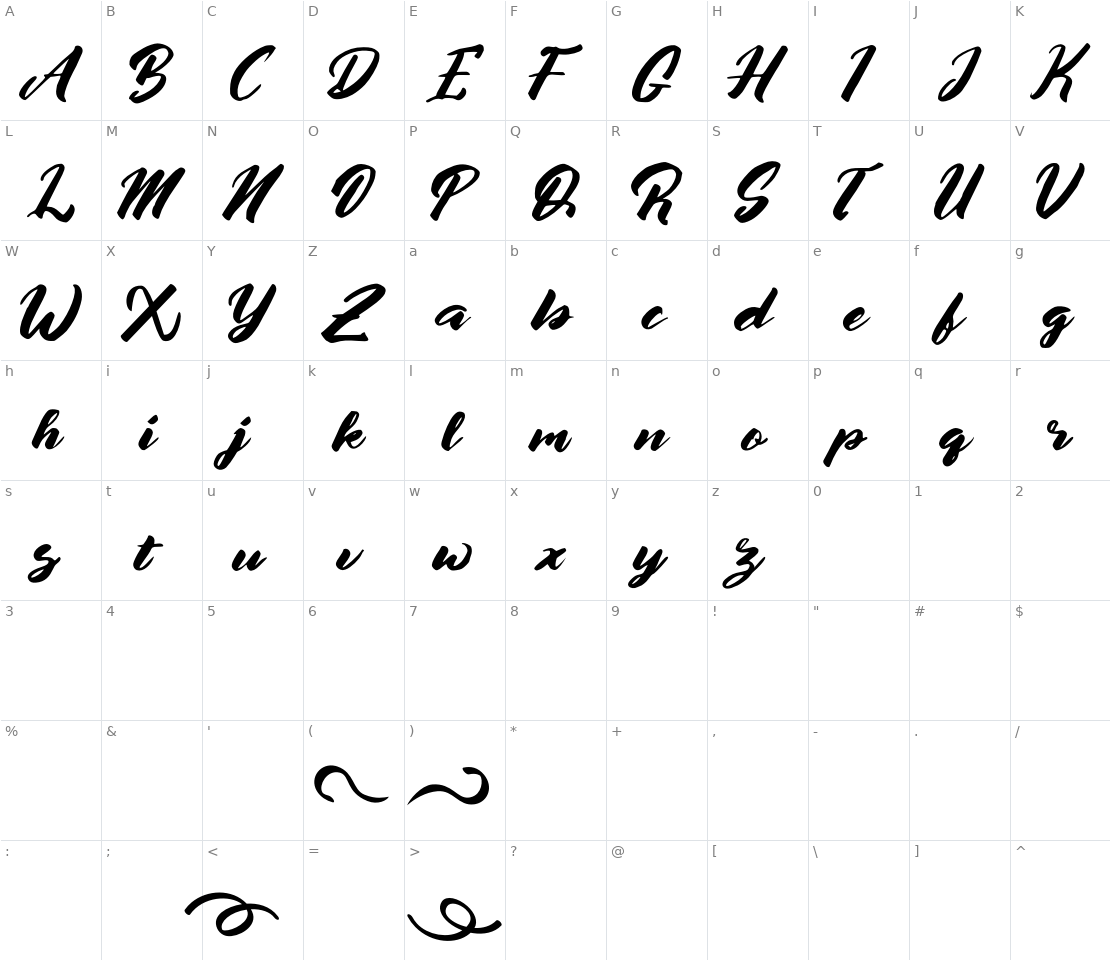
Afrinuma
Afrinuma is a bold brush lettering face by Haris Prawoto with thick, sweeping strokes that carry real kinetic energy. The letterforms feel fast and expressive, like they were laid down in a single confident pass, giving headlines and posters an immediacy that more polished type can't fake. Best kept to large sizes where the dynamic brushwork has room to breathe.